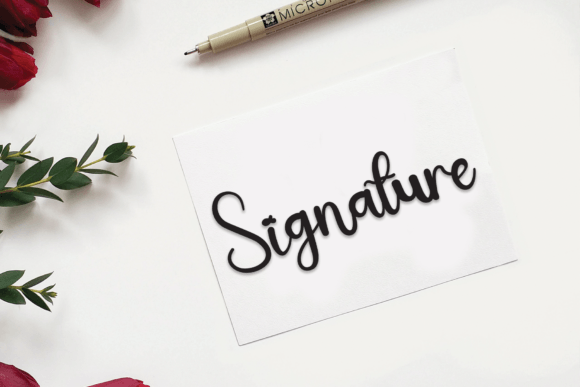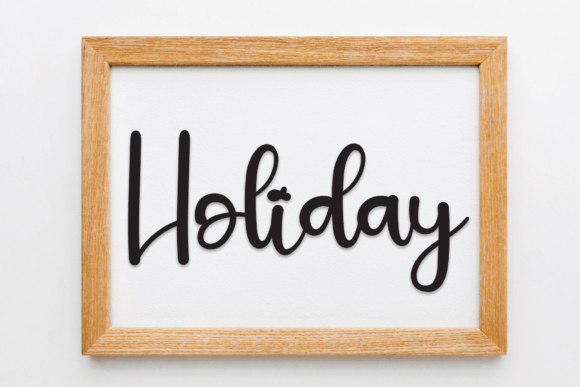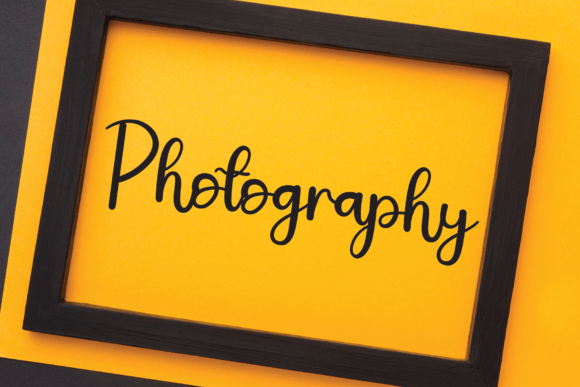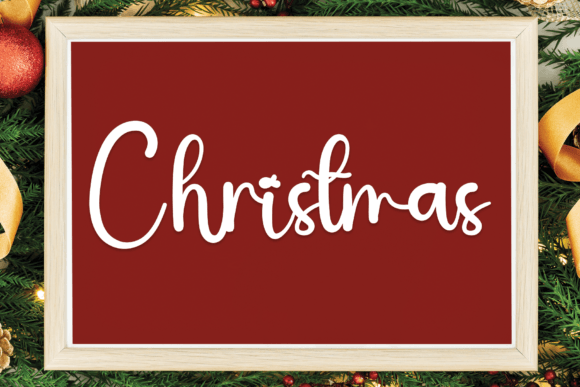
Introduction to How Are You Font
How Are You is a simple and friendly handwritten font.
Whether youโ€™re using it for crafts, digital design, presentations, or creating greeting cards, this font has the potential to become your go-to font, whatever the occasion .
Key Features of How Are You Font
Why Choose How Are You Font?
How Are You Font offers exceptional quality and versatility, making it a valuable addition to your design toolkit. Whether you’re creating for personal projects or commercial use, How Are You Font delivers professional results.